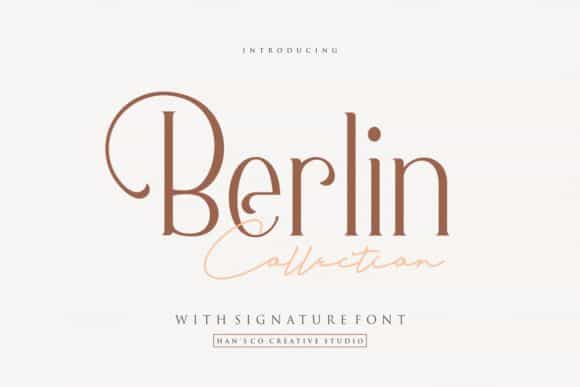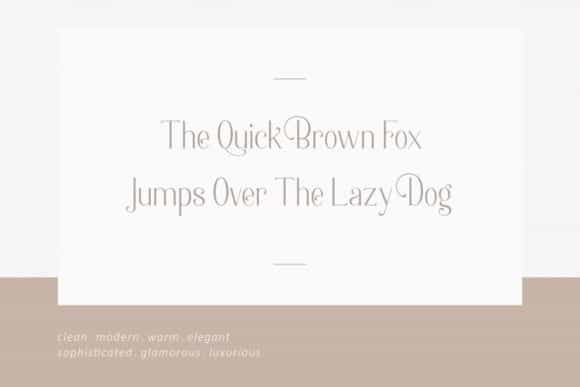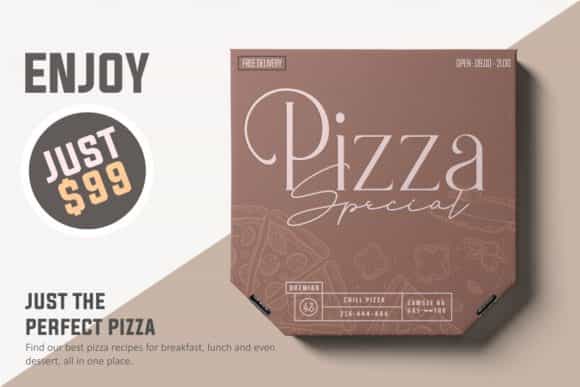
Berlin is a new display font serif and script to use. They are classical but not conservative sweet font that is perfect for the contemporary society. This elegant font pair will easily add a special appeal on any kind of project that you are working on! Berlin, therefor is a very simple serif font that reflects modernity. If incorporated into a design concept it will create an over the top opulent look for the space!